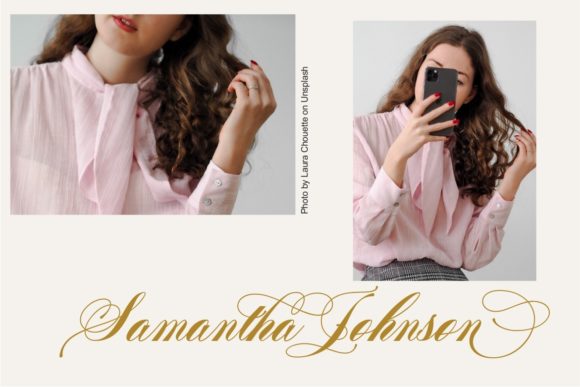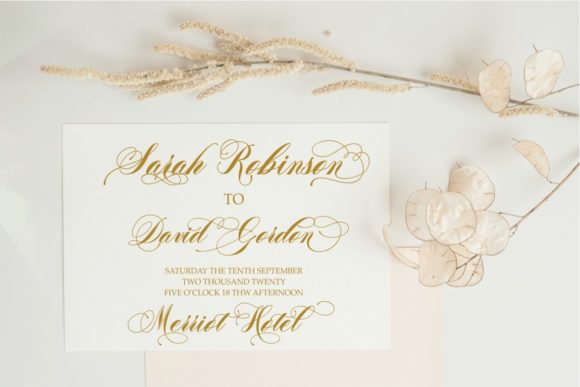
About Gathering Font
Introducing “Gathering,” the new modern calligraphy font that exudes elegance and style, perfect for elevating your designs to new heights. Whether you’re creating wedding invitations, save the date cards, or feminine branding, Gathering brings a touch of sophistication to every project.
With its graceful strokes and contemporary flair, Gathering captures attention and leaves a lasting impression. Its versatility makes it suitable for a wide range of design applications, allowing you to express yourself with elegance and creativity.
Unlock the full potential of Gathering with its PUA encoding, giving you access to all the amazing glyphs and ligatures with ease. This feature enables you to customize your designs and add unique touches, enhancing the beauty and uniqueness of your creations.
Experience the beauty and versatility of Gathering and watch as it transforms your designs into stunning works of art. Whether you’re a professional designer or a passionate enthusiast, this font invites you to explore new possibilities and express yourself with confidence and style.